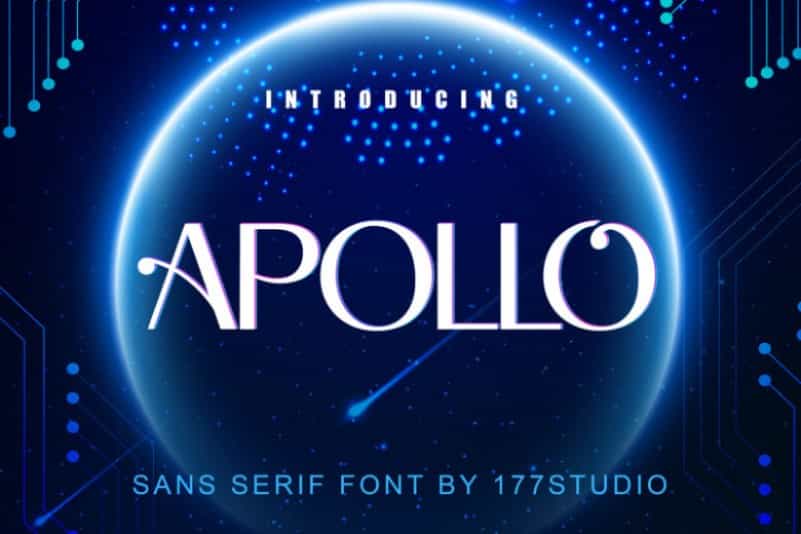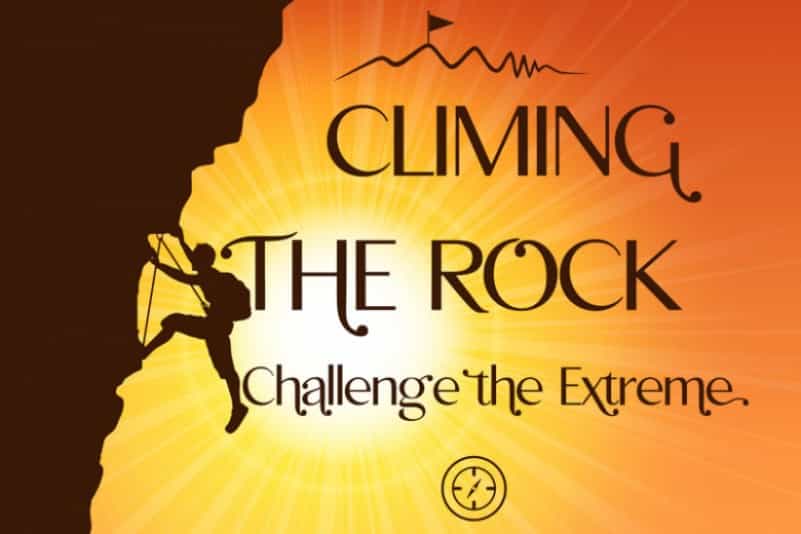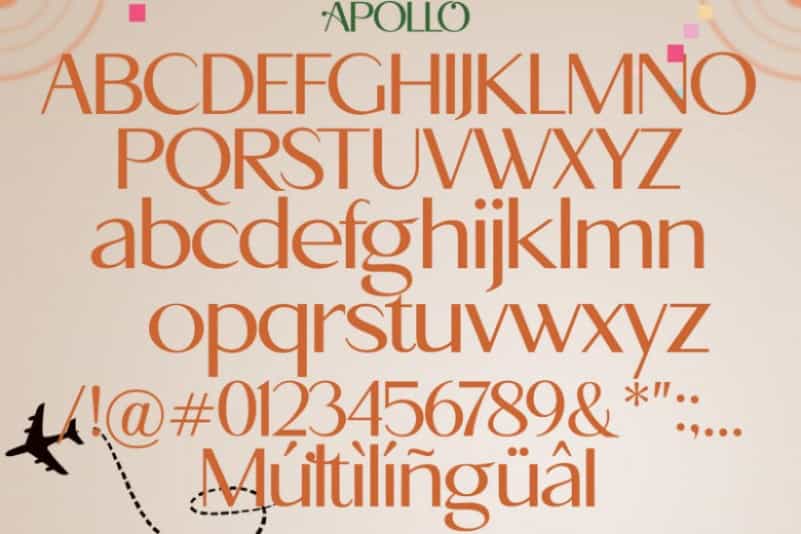
Apollo is contemporary sophisticated and striking sans serif font that opens up more possibilities for your design. The contrast of lines and the balanced form of these fonts will give an simple to read.